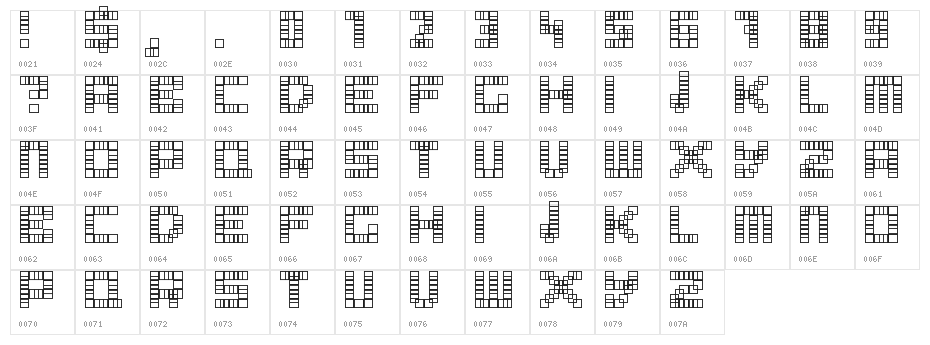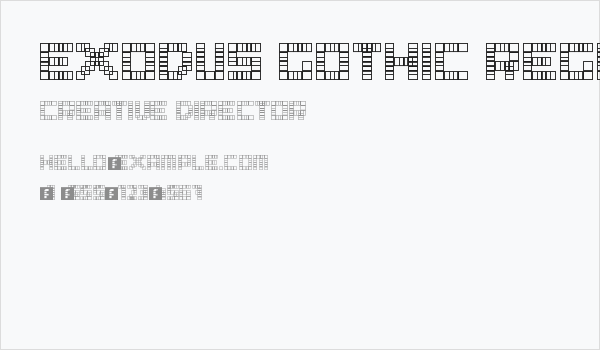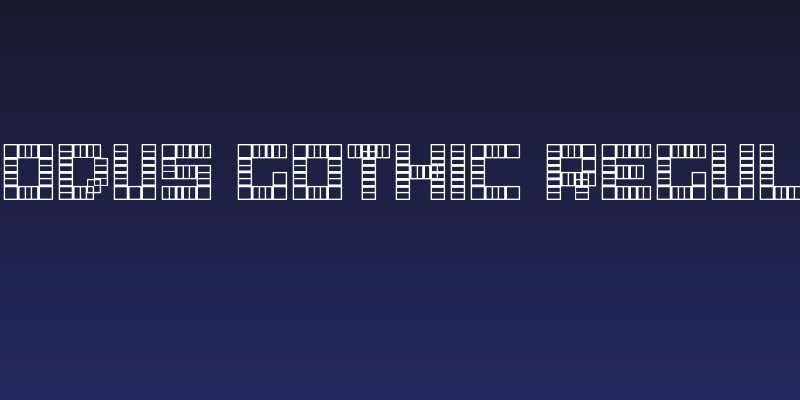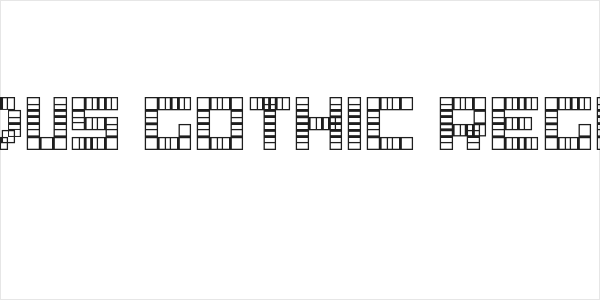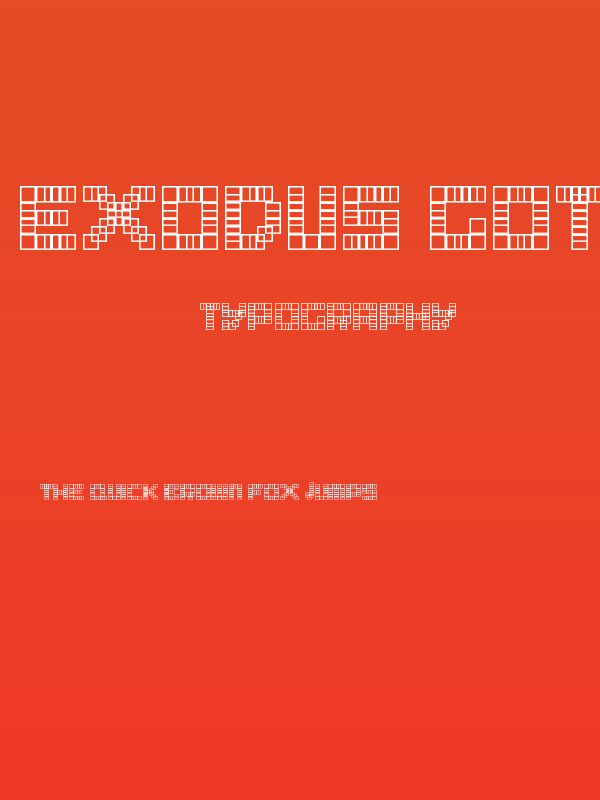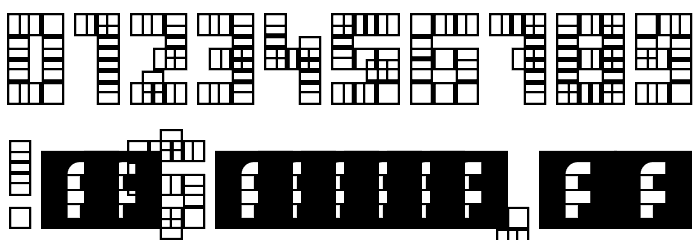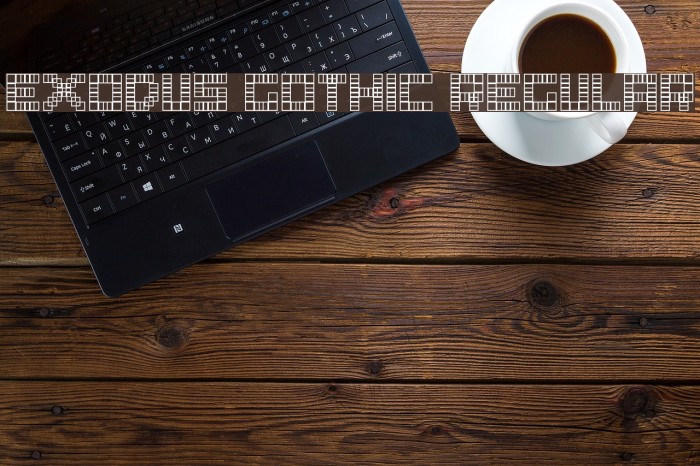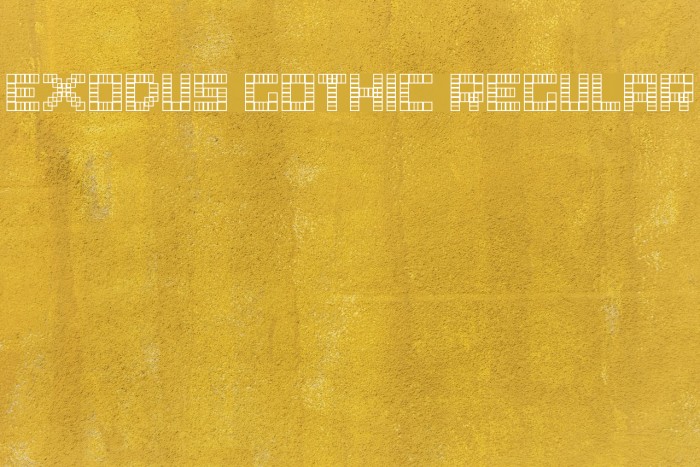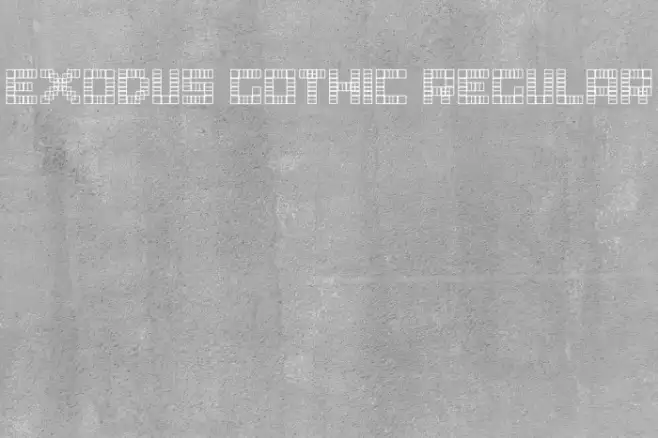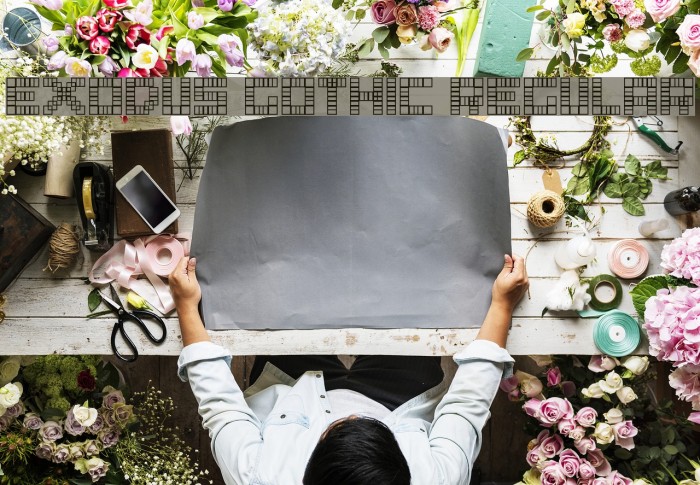
Exodus Gothic Regular Font
Exodus Gothic Regular Description
This font features a unique, grid-like structure that gives it a digital and futuristic appearance. Each character is composed of small square blocks arranged in a way that forms the letter shapes, creating a pixelated effect. The design is consistent across uppercase, lowercase, numbers, and special characters, maintaining a cohesive look. The font's geometric nature makes it stand out, offering a modern and tech-inspired aesthetic. Its distinct style is ideal for projects that require a bold and unconventional typeface.
| Proposed Projects | Ideal for tech-themed designs, video game graphics, digital art projects, and modern branding. |